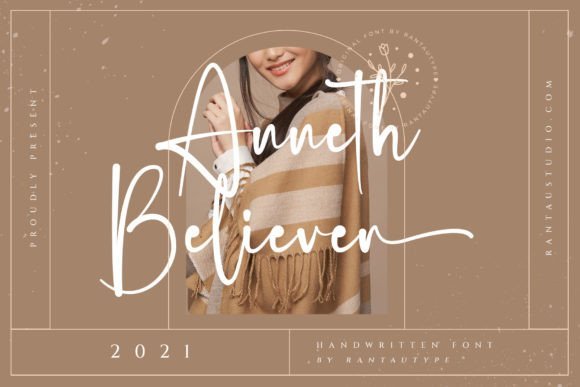
Unleash Your Creativity with the Anneth Believer Font
Have you ever been stuck in a design rut, struggling to find the perfect font to bring your vision to life? You know that feeling when you see a beautiful hand-drawn design and wish you could replicate it with ease?
Look no further! The Anneth Believer Font is here to revolutionize your design process. This unique handwritten font is designed to be versatile and perfect for a wide range of creative projects, from crafting and digital designing to presentations and greeting card making. With its incredibly stylish and elegant look, you’ll fall in love with its endless possibilities.
As a designer, you know the value of having the right tools at your disposal. The Anneth Believer Font is PUA encoded, making it easy to access all of its glyphs and swashes, giving you complete control over your designs.
Anneth Believer Font Key Features
- Font Style: Script, Handwritten, Calligraphy
- Font Size: 1,000+ glyphs, including uppercase and lowercase letters, numbers, punctuation, and special characters
- Resolution: Supports high-resolution displays (up to 4K and beyond)
- Language Support: Multilingual support, including Latin, Cyrillic, Greek, and more
- Unique Characteristics: Hand-crafted, elegant, and sophisticated script font with a unique, flowing style
Anneth Believer Font Review
Overall, I think the Anneth Believer Font has some great qualities that make it a solid choice for designers. ✨ One of the things I like most is its unique blend of modern and vintage elements, which can add a lot of character to a project. The font also has a wide range of applications, from display headings to body text, making it a versatile choice.
- The font’s texture and grainy feel give it a tactile quality that’s really appealing.
- The ligatures are well-designed and help to create a cohesive look.
- The font’s x-height is well-balanced, making it easy to read.
However, I do have a few concerns. ⚠️ One of the main limitations is that the font may not be suitable for projects that require a high level of precision or technical accuracy. Additionally, the font’s grainy texture may not be to everyone’s taste.
Overall, I think the Anneth Believer Font is a great choice for designers who want to add some personality to their projects. While it may not be the best choice for every project, it’s definitely worth considering for those that require a unique and eye-catching font.
Anneth Believer Font Guide
To get the most out of the Anneth Believer font, use it in bold or italic styles to add emphasis to your text. You can also use it in combination with other fonts to create a unique design.
The Anneth Believer font is ideal for use in creative projects, such as graphic design, typography, and digital art. It’s also suitable for use in branding and marketing materials, such as logos, business cards, and brochures.
Alternative Fonts to Anneth Believer Font
Great Vibes is a beautiful, elegant script font. It’s perfect for creating a sense of luxury and sophistication in your designs. Use it for invitations, wedding designs, or any project where you want to convey a sense of high-end style. Great Vibes has a more refined and cursive feel compared to Anneth Believer Font, which makes it ideal for projects that require a touch of elegance.
Pacifico is a modern, stylish script font with a relaxed, beachy vibe. It’s perfect for creating a laid-back, casual atmosphere in your designs. Use it for summer-themed projects, beach-themed designs, or any project where you want to convey a sense of relaxation. Pacifico has a more casual and laid-back feel compared to Anneth Believer Font, which makes it ideal for projects that require a relaxed atmosphere.
Lobster is a fun, playful script font with a retro vibe. It’s perfect for creating a sense of whimsy and fun in your designs. Use it for projects that require a touch of humor or playfulness, such as advertisements, social media posts, or children’s products. Lobster has a more playful and casual feel compared to Anneth Believer Font, which makes it ideal for projects that require a lighthearted tone.
What is the recommended font size and line height for the Anneth Believer Font?
For optimal readability, we recommend using the Anneth Believer Font at a minimum font size of 12 points and a line height of at least 1.5 times the font size. This will ensure that the text is clear and easy to read, even at smaller font sizes.